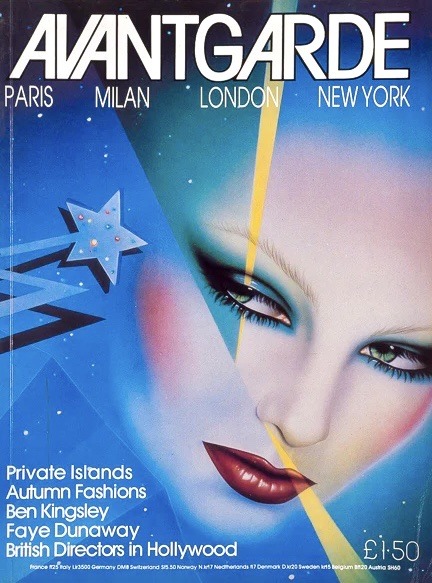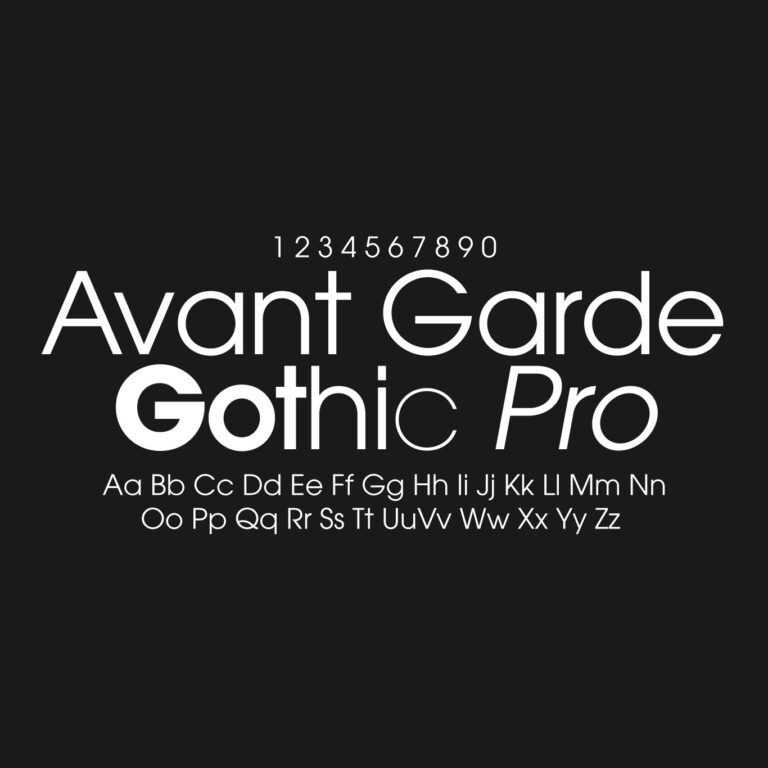
Few typefaces started life as scandalously as ITC Avant Garde Gothic — born as the masthead of a magazine so provocative its publisher went to prison, and grown into the defining geometric sans of 1970s design. This download includes the Pro edition of the family, the OpenType release that restored the legendary ligatures and alternates missing from earlier digital versions.
Sex, Prison, and Cap Ligatures
The story begins with Avant Garde magazine, the hard-bound periodical Herb Lubalin art-directed for publisher Ralph Ginzburg from 1968 to 1971. Ginzburg was no stranger to controversy — his earlier magazine Eros had been shut down under federal obscenity law, a conviction the Supreme Court upheld — and Avant Garde itself ended after 14 issues when Ginzburg went to prison. But the magazine’s masthead outlived it all. Ginzburg had rejected Lubalin’s ornate early proposals (“Cut it out!”), pushing him toward something genuinely new: tightly interlocked geometric capitals sharing common strokes. As Lubalin put it, nobody had ever “fooled around with cap ligatures” before — and that’s how the logotype was born, drawn in its final form by Lubalin’s partner Tom Carnase in 1967.
Demand from designers for a full alphabet became so intense that Lubalin and Carnase expanded the logo into a complete typeface, released in 1970 as one of the very first fonts from the International Typeface Corporation — the licensing company Lubalin had just co-founded. The family kept growing through the decade: Ed Benguiat drew the condensed styles in 1974, and André Gürtler, Erich Gschwind, and Christian Mengelt added the obliques in 1977. Its 30-plus alternate characters and interlocking ligatures became one of the defining display looks of the 1970s.
The Lost Ligatures — and Why “Pro” Matters
Here’s the detail most download pages skip: when Avant Garde Gothic was first digitized, the ligatures and alternates — the entire point of the design — were left out. For years the digital font was, in critic Steven Heller’s words, reduced to “a flawed Futura-esque face,” and Lubalin himself was reportedly dismayed at how carelessly his signature typeface was applied. The Pro edition, released in the OpenType era, fixed this: it restored the original 33 alternate characters and logotype ligatures and more than doubled them, adding new cap and lowercase alternates plus biform characters (lowercase letters drawn at capital proportions). If you’ve only ever used a basic Avant Garde cut, the Pro version is a different typeface in practice.
Design-wise, the family is pure circle-and-line geometry in the Bauhaus tradition — enormous round counters, a tall x-height, short descenders, and those unmistakable sloped-apex A and V forms. It’s a display face through and through: spectacular above headline sizes with its ligatures engaged, and famously unforgiving when set small or in long text. Use it for what Lubalin built it for — tight, confident, logo-like headlines — and pair it with a quieter text face for everything else.
Font Name: ITC Avant Garde Gothic Pro
Font Type: Sans Serif
Category: Geometric Sans Serif / Display
Visual Style: Geometric, retro-modern, 1970s, logo-like
Best For: Headlines, logos, posters, retro branding, album art and editorial display work
Designers: Herb Lubalin and Tom Carnase (condensed: Ed Benguiat, 1974; obliques: Gürtler, Gschwind & Mengelt, 1977)
Foundry: ITC (now Monotype)
Original Release: 1970 (Pro OpenType edition: 2005)
Futura is the obvious ancestor — Avant Garde’s stricter, more European grandparent. ITC Lubalin Graph is the official slab-serif sibling, built on the same geometric skeleton with rectangular serifs added. For free alternatives in the same geometric lane, Jost (Google Fonts) captures the Futura-style DNA, while Montserrat and Gilroy cover the modern geometric territory without the 1970s ligature system that makes Avant Garde itself unique. TeX Gyre Adventor and URW Gothic are the closest free metric-compatible substitutes.